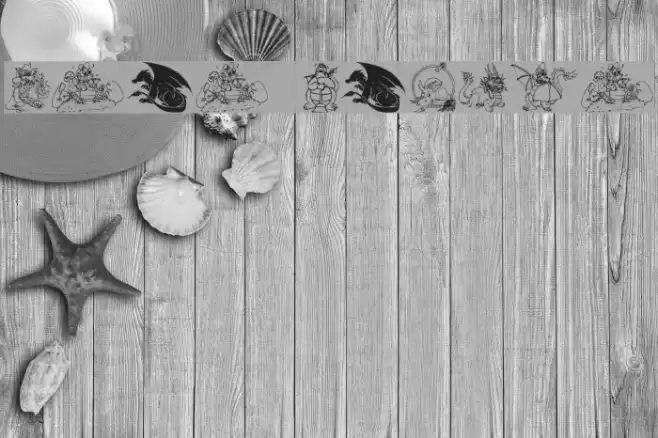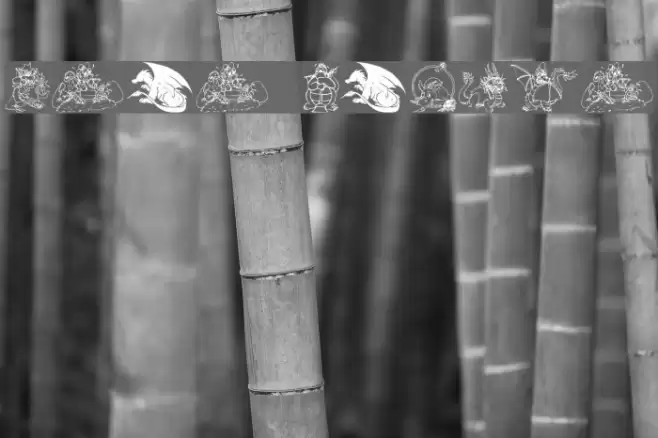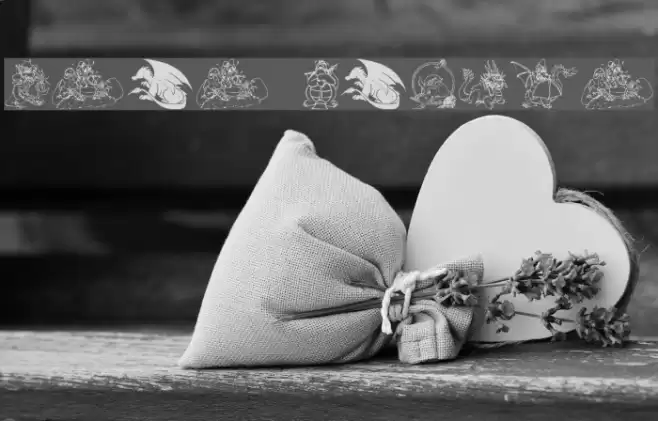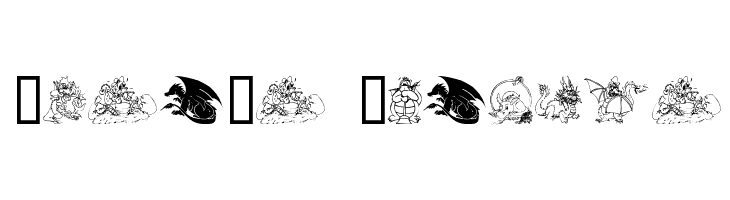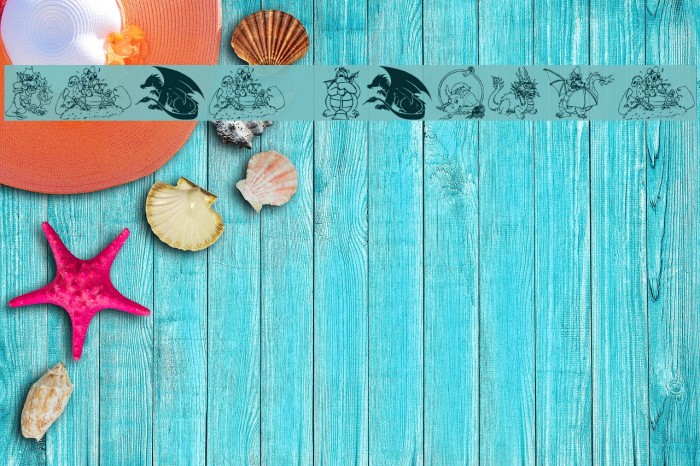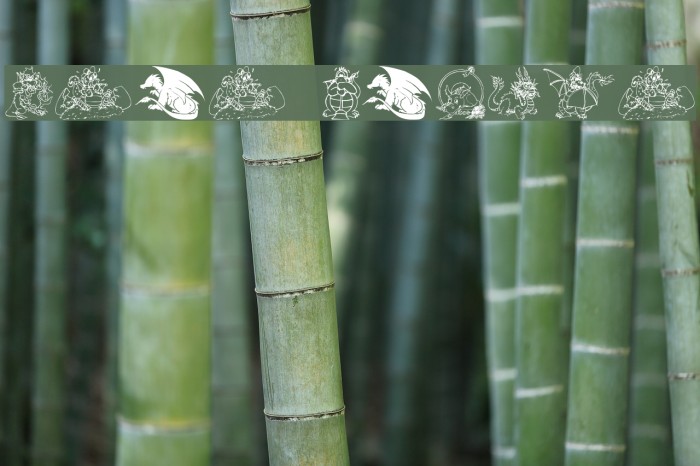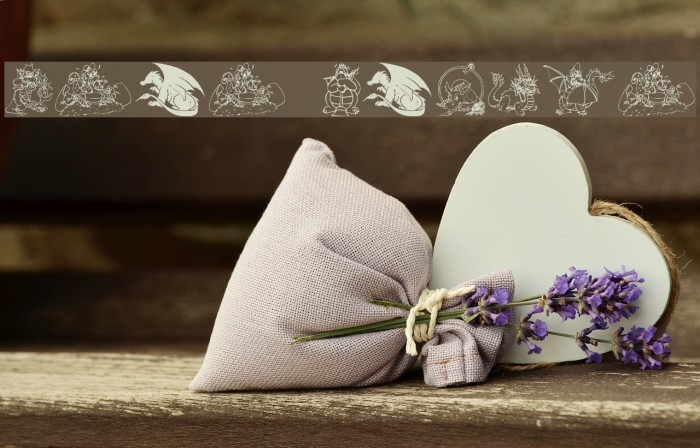
Lisa's Dragons Font
Lisa's Dragons Description
A decorative display font featuring whimsical, hand-drawn dragon illustrations for each character, with unique and playful designs replacing standard letterforms and numbers.
Whimsical dragon-themed decorative font with illustrated glyphs from Dingbats fonts.
- Proposed Projects: Children's books, fantasy-themed invitations, posters, greeting cards, game titles.
- Overall Style: Decorative, Whimsical, Fantasy
- Use Case: Logos, Posters, Headlines, Themed projects